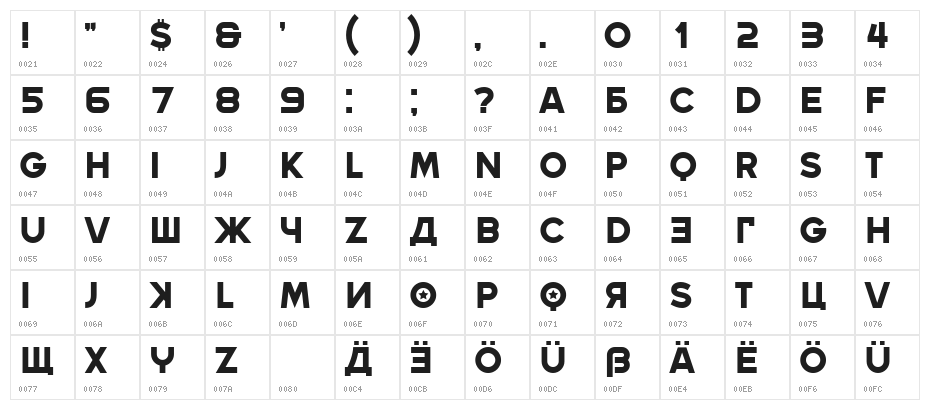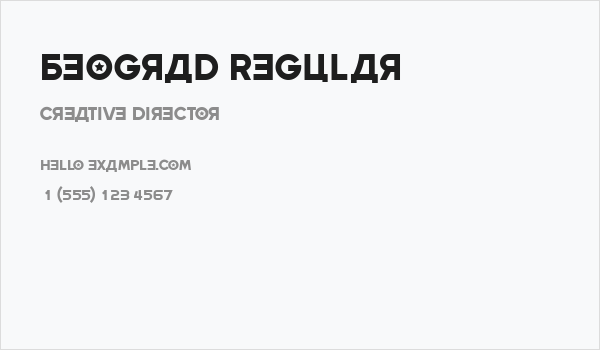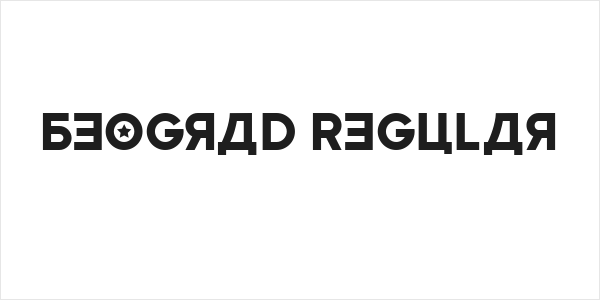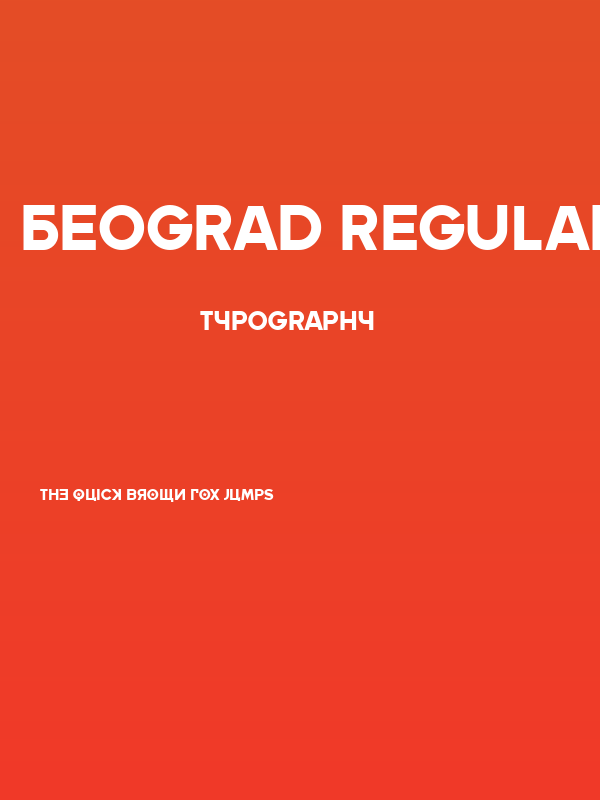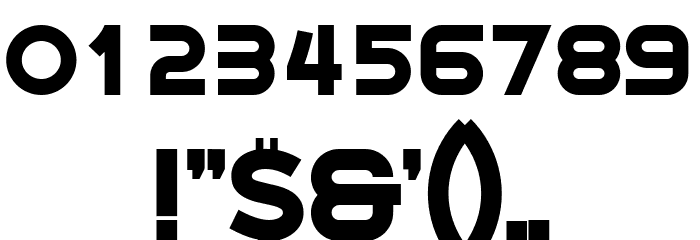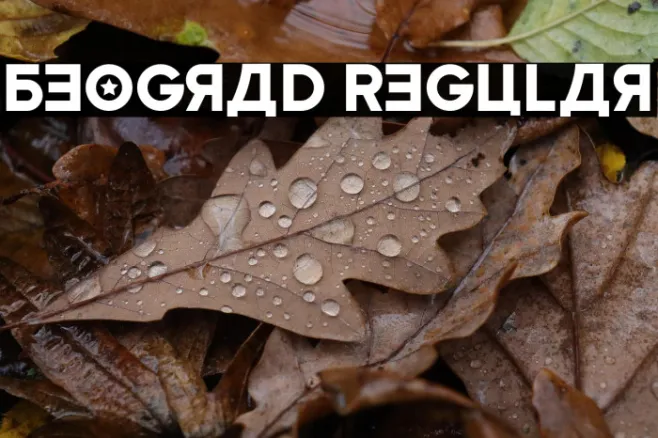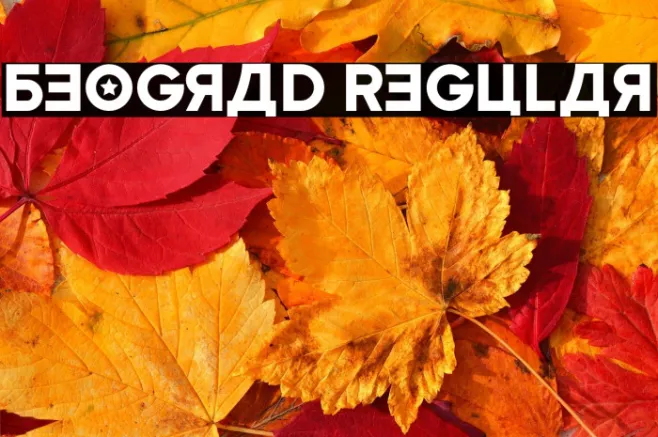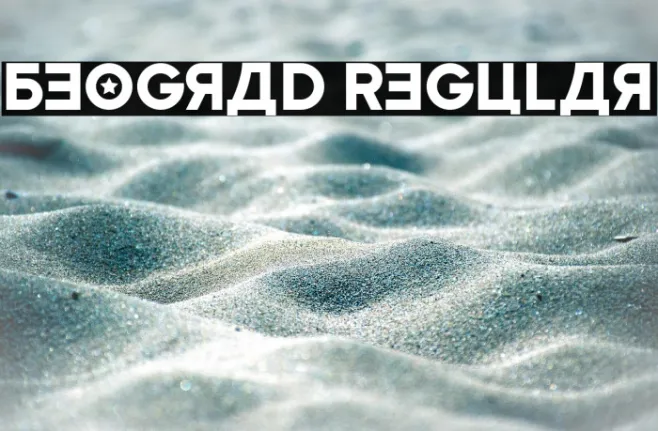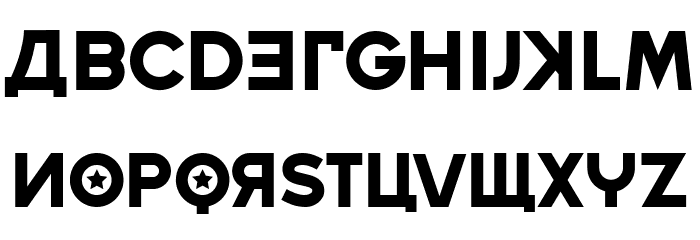
Beograd Regular Font
Beograd Regular Description
This font features a bold, geometric design with strong, clean lines and a modern aesthetic. The characters are uniformly thick, giving it a robust and impactful appearance. The uppercase letters are particularly striking, with a consistent height and width that enhances readability. The numerals and special characters maintain the same boldness, ensuring a cohesive look across all text. The font's style is versatile, making it suitable for a variety of design projects that require a contemporary and assertive typeface.